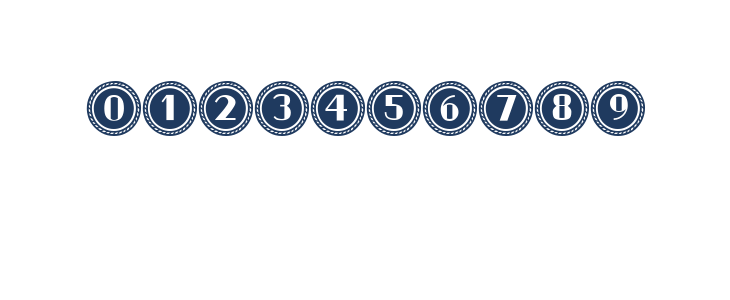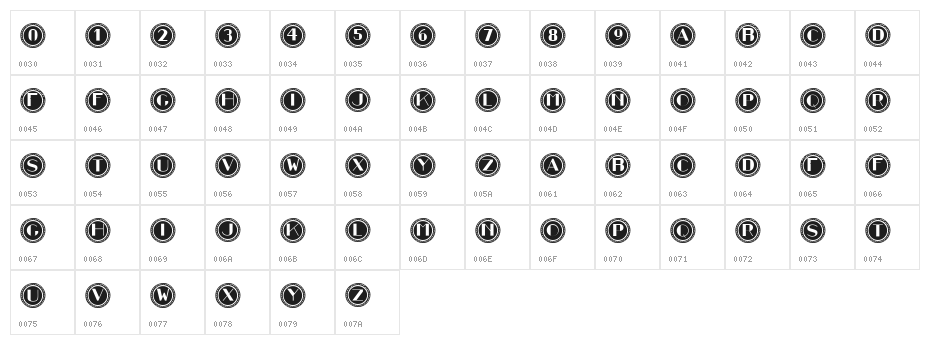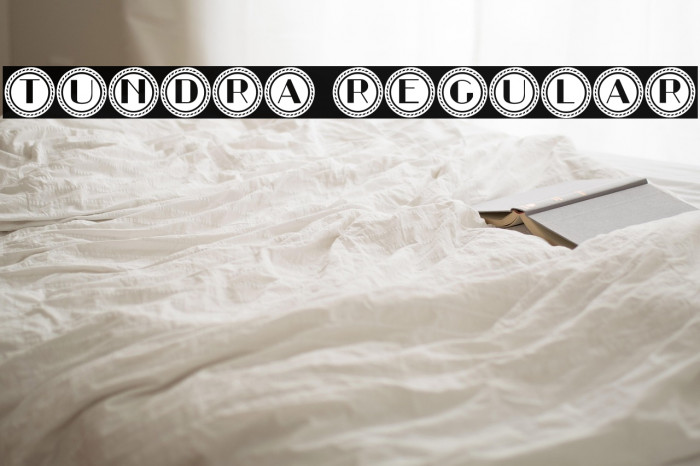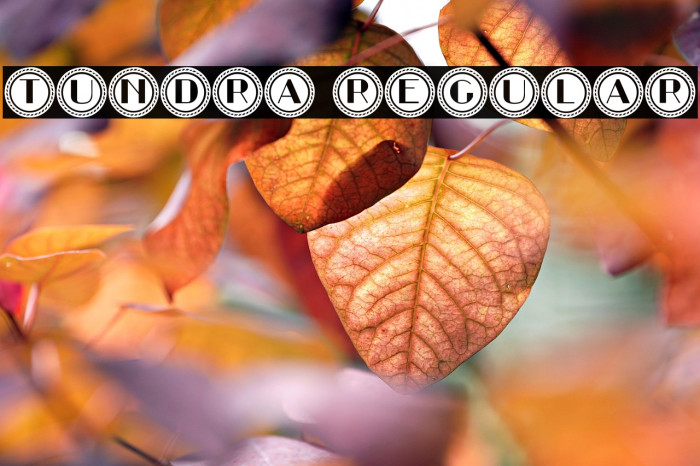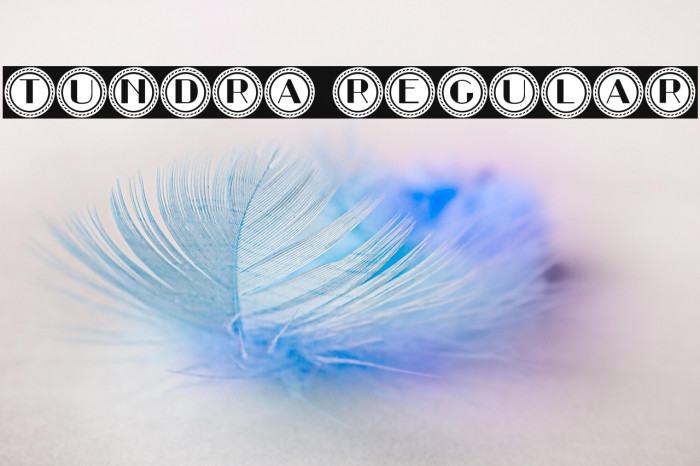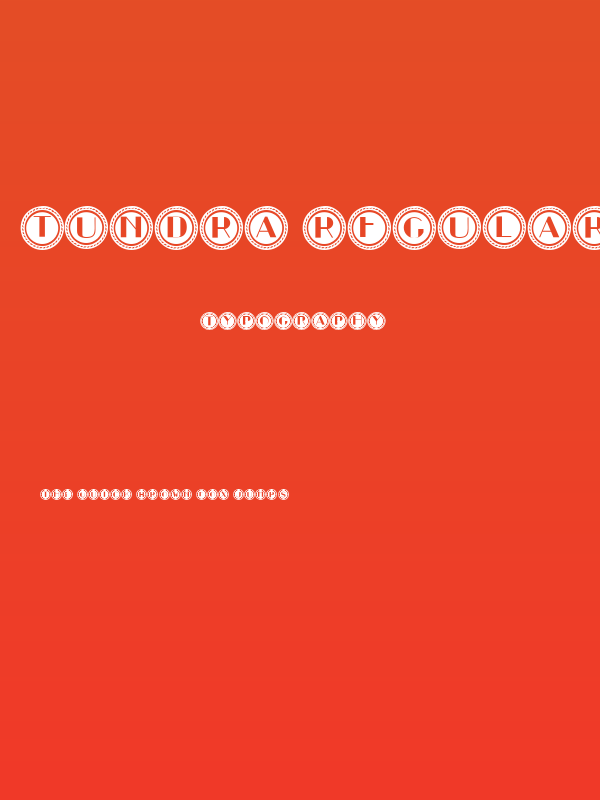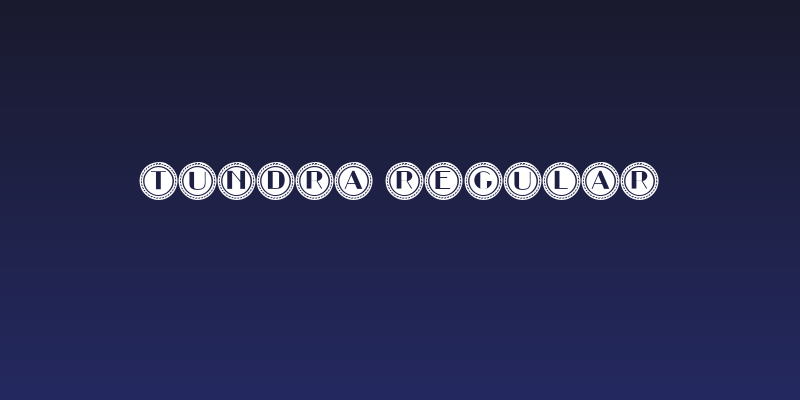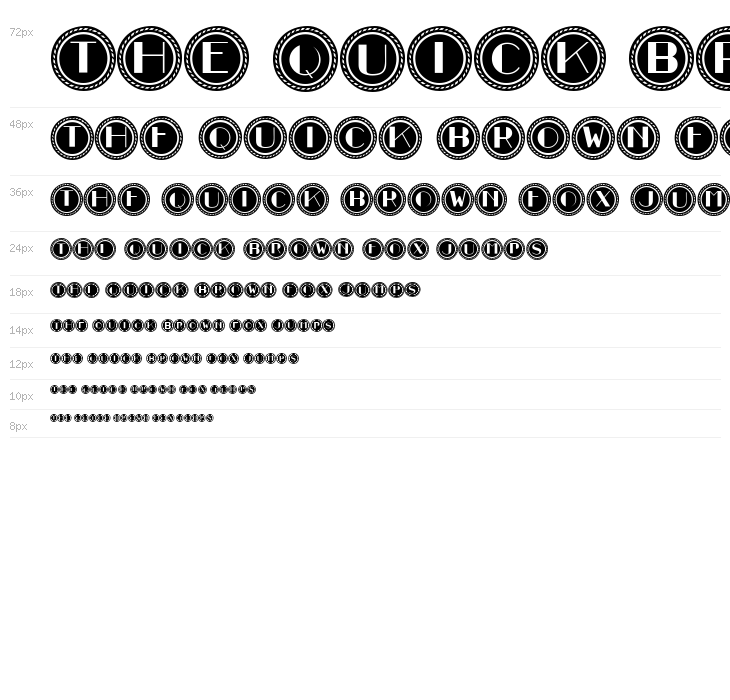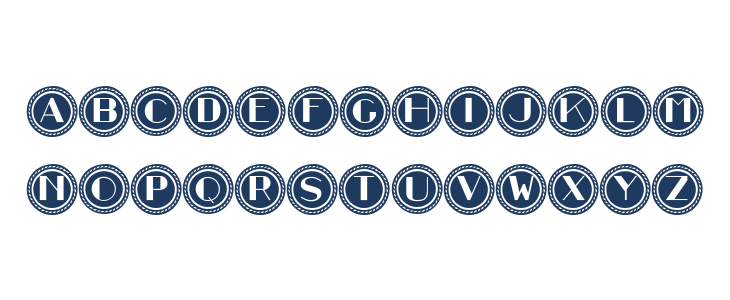
Tundra Regular Font
Tundra Regular Description
This font features bold, uppercase and lowercase letters encased within circular badges, creating a striking and decorative appearance. Each character is centered within a black circle, surrounded by a dotted border, giving it a vintage and playful feel. The letters are sans-serif, with clean lines and a uniform thickness, contributing to a modern yet retro aesthetic. The numbers and special characters follow the same design, ensuring consistency across all elements. This font is ideal for projects that require a unique and eye-catching style, such as posters, logos, or branding materials.
| Overall Style | Vintage |
| Use Case | Logos, Headlines, Posters |
| Proposed Projects | Ideal for posters, logos, branding materials, and any design needing a unique, eye-catching style. |